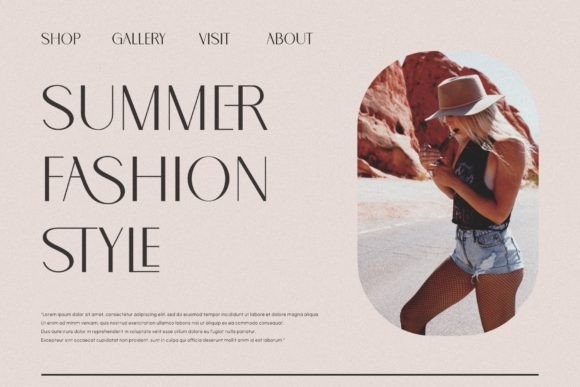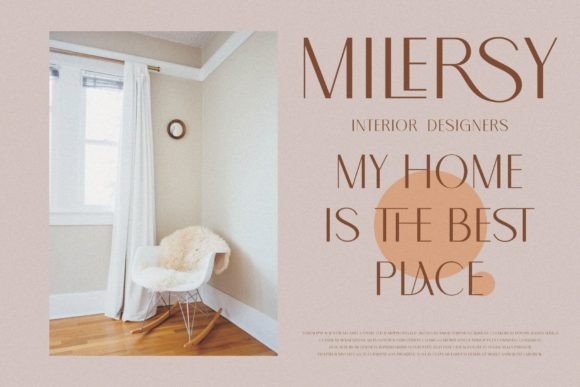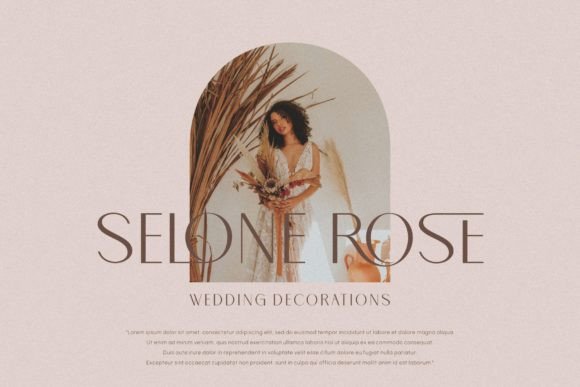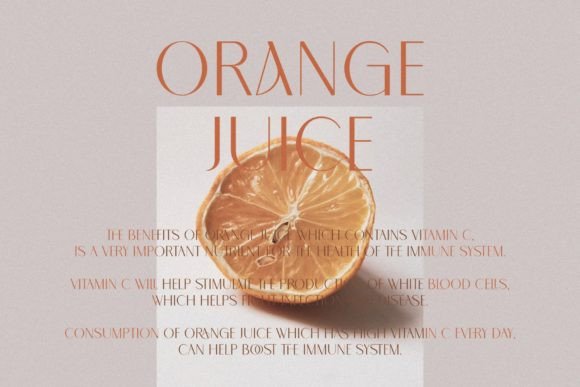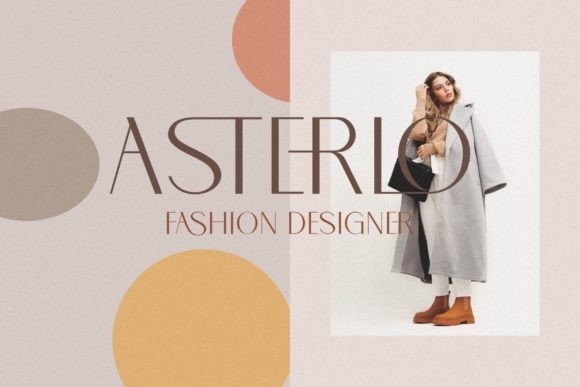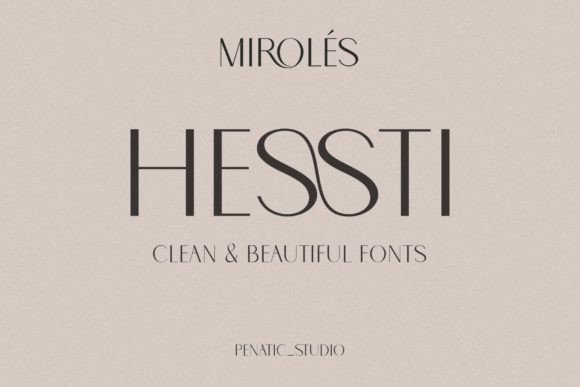
Introduction to Miroles Font
MIROLES Beautiful, clean, neat San Serif font, lots of ligatures and alternative letters.
It will make your work better for sure Easy to use and very suitable for all your work in stringing letters.
Key Features of Miroles Font
Why Choose Miroles Font?
Miroles Font offers exceptional quality and versatility, making it a valuable addition to your design toolkit. Whether you’re creating for personal projects or commercial use, Miroles Font delivers professional results.